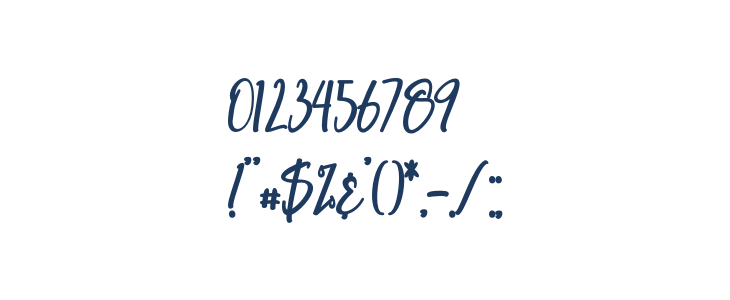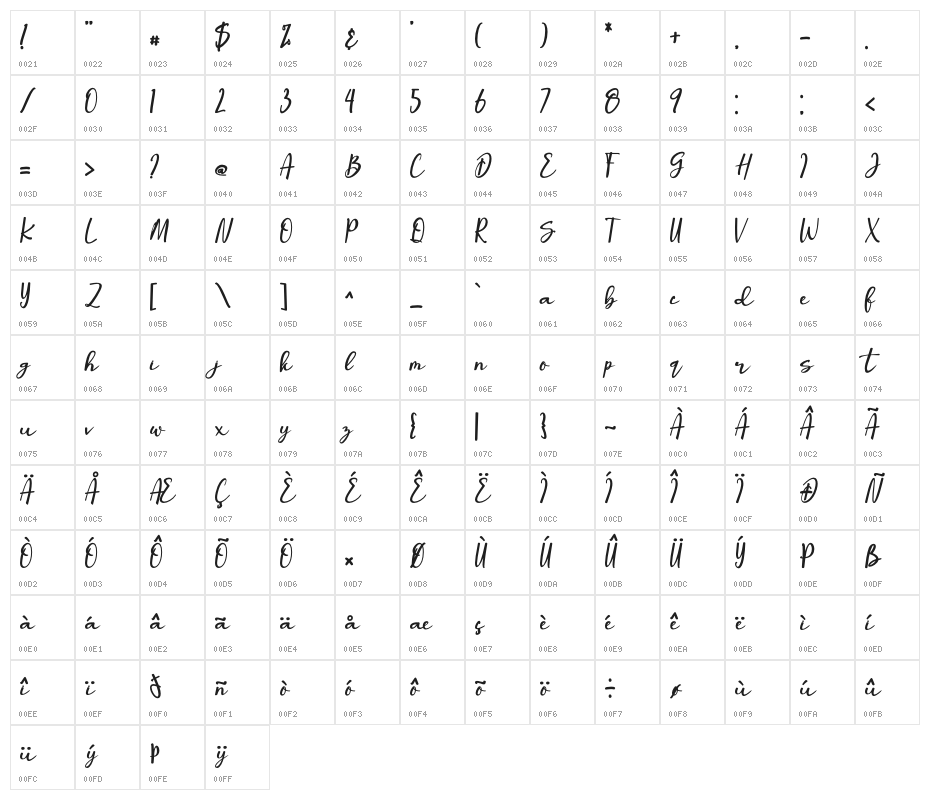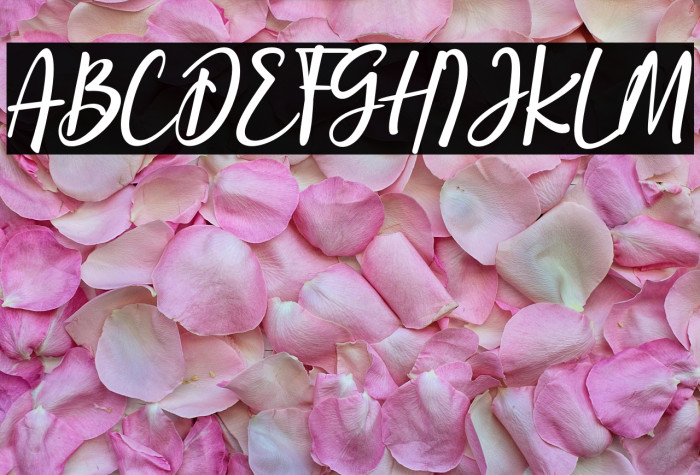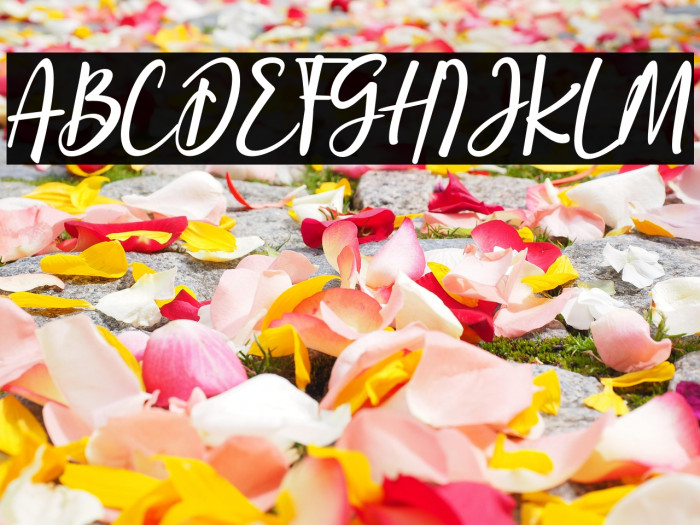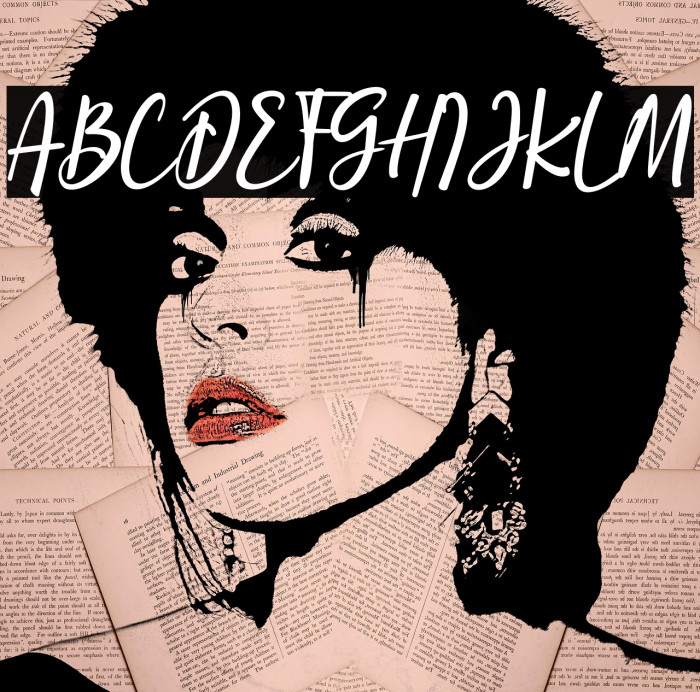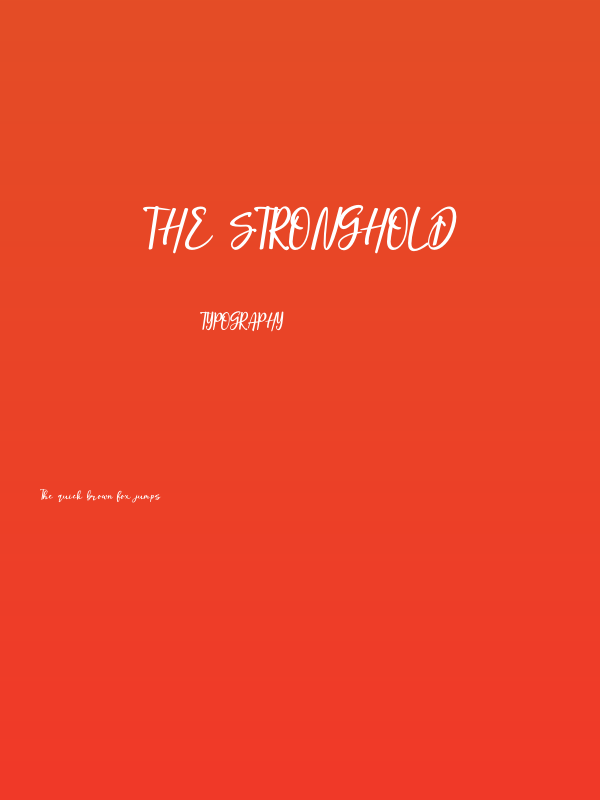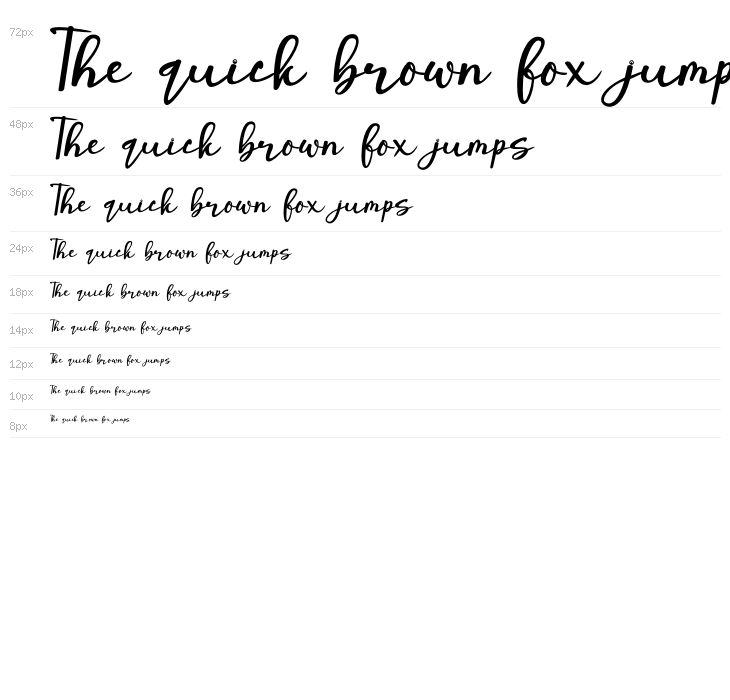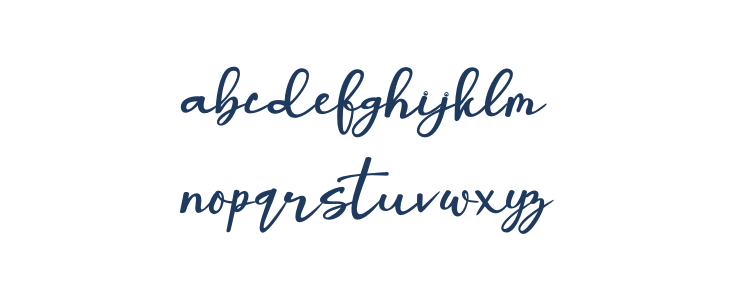
the stronghold Font
the stronghold Description
This font features a dynamic and energetic script style, characterized by fluid, cursive strokes that convey a sense of movement and elegance. The uppercase letters are bold and slightly slanted, adding a touch of flair and sophistication. The lowercase letters maintain a consistent flow, with smooth connections between characters, enhancing readability while preserving the artistic flair. Numbers are designed with the same fluidity, ensuring consistency across all elements. Special characters are crafted to complement the overall style, making this font versatile for various design needs.